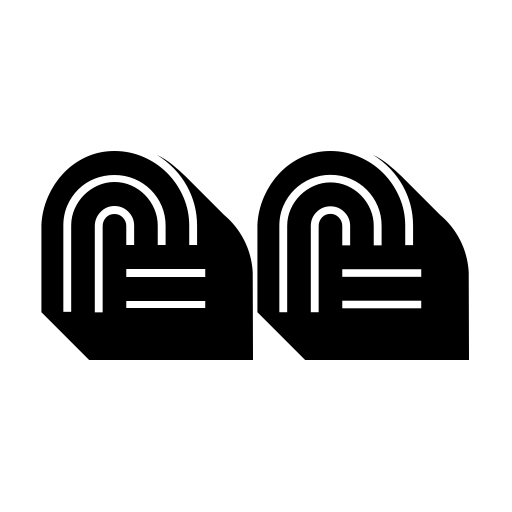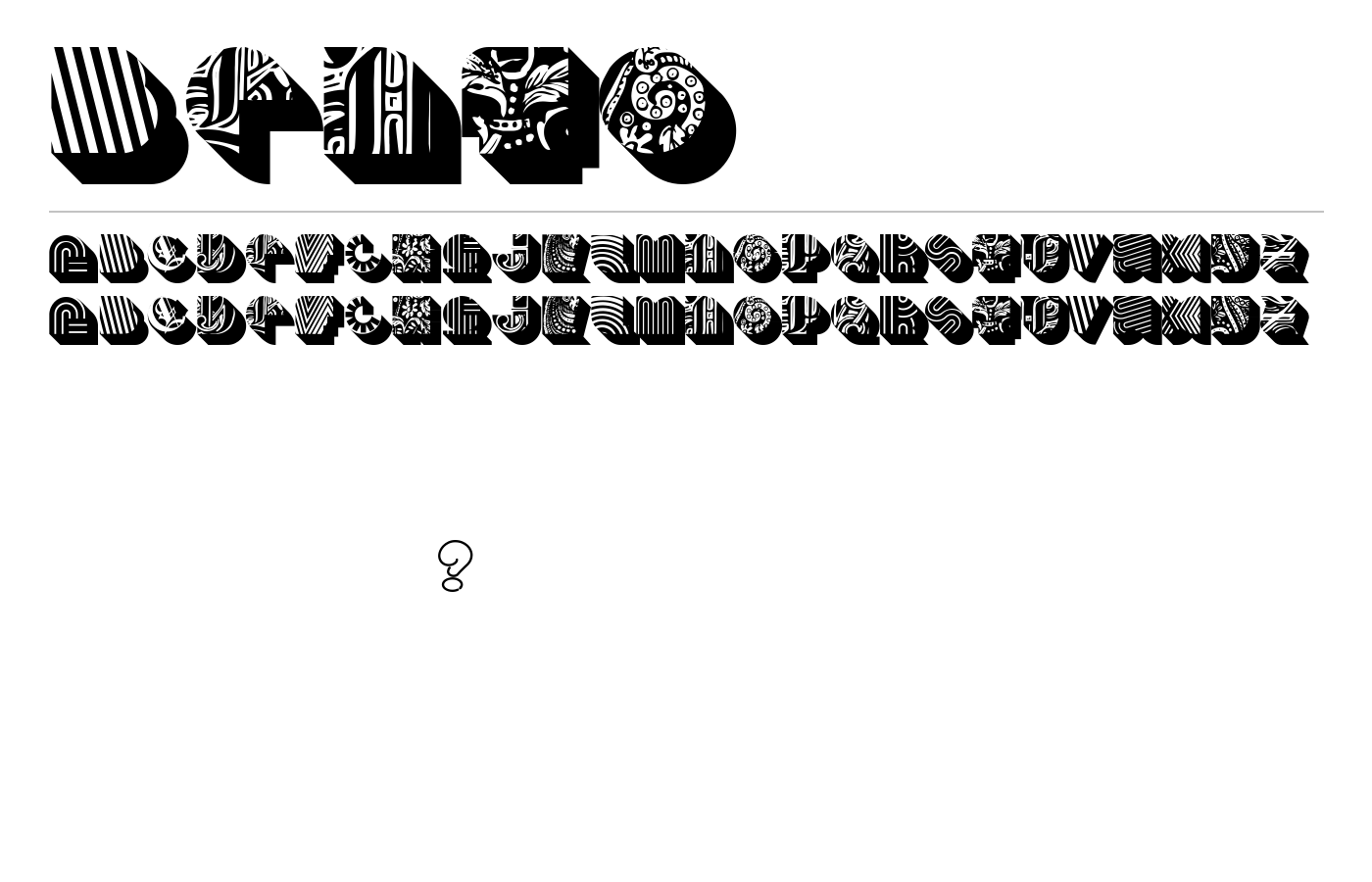
BENTO is a bold, decorative sans serif font featuring striking geometric shapes filled with intricate black-and-white patterns. Its heavy weight and artistic details give it a playful yet sophisticated vibe, making it ideal for eye-catching headlines, logos, and creative packaging that seek to stand out with a unique and modern flair. This font works best in designs where bold, expressive typography is needed to make a strong visual impact.
BENTO Font
About BENTO Font
| Font family | BENTO Font |
| Designer | yong // oneonezero |